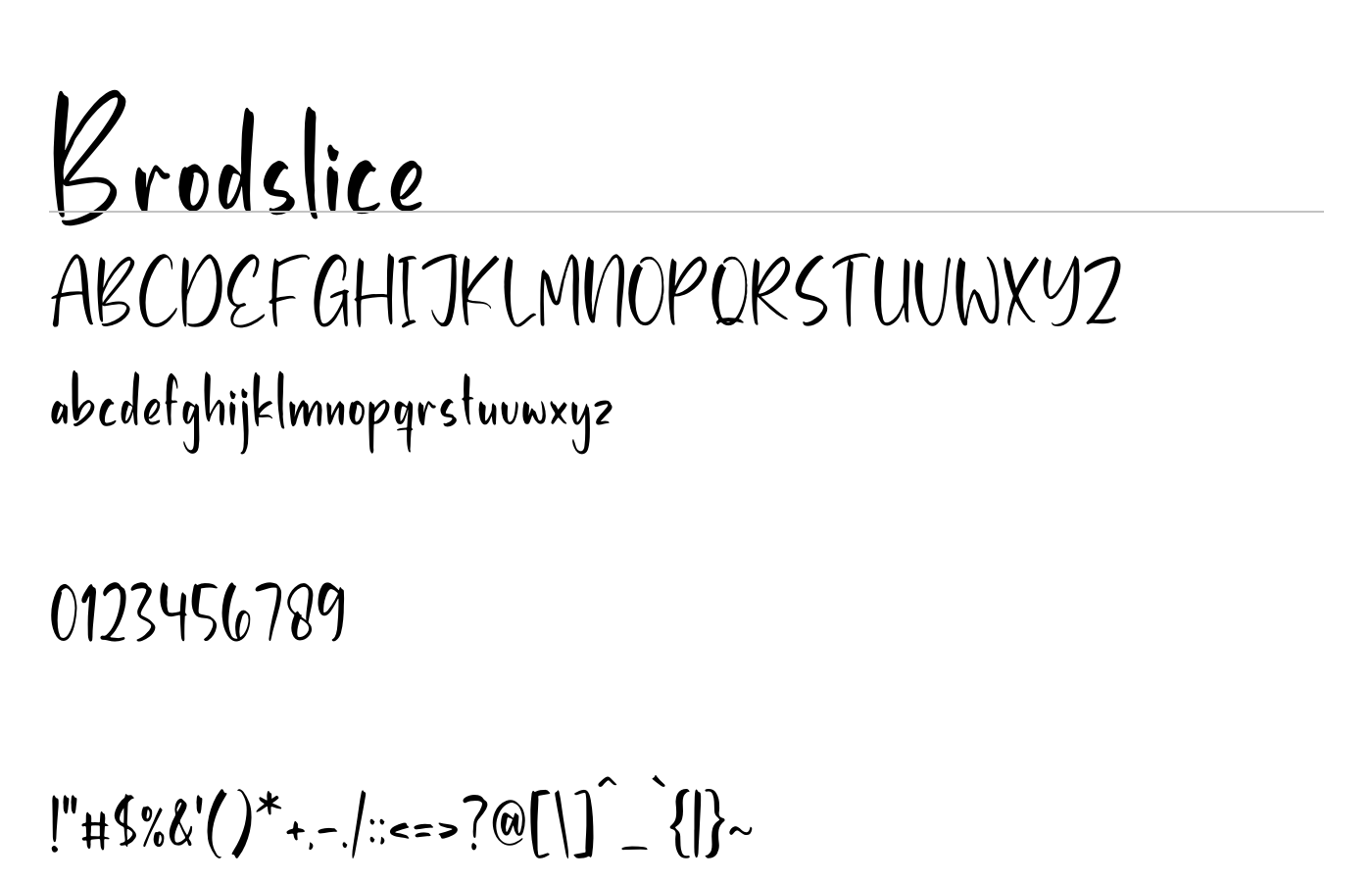
Brodslice is a casual, playful handwritten font characterized by its tall, narrow letterforms and varying stroke widths that give it an organic, lively feel. Its slightly irregular shapes and informal style make it perfect for fun, creative projects such as invitations, branding for youthful or artistic brands, and eye-catching headlines. This font shines in any design that benefits from a personal, approachable touch.
Brodslice Font
About Brodslice Font